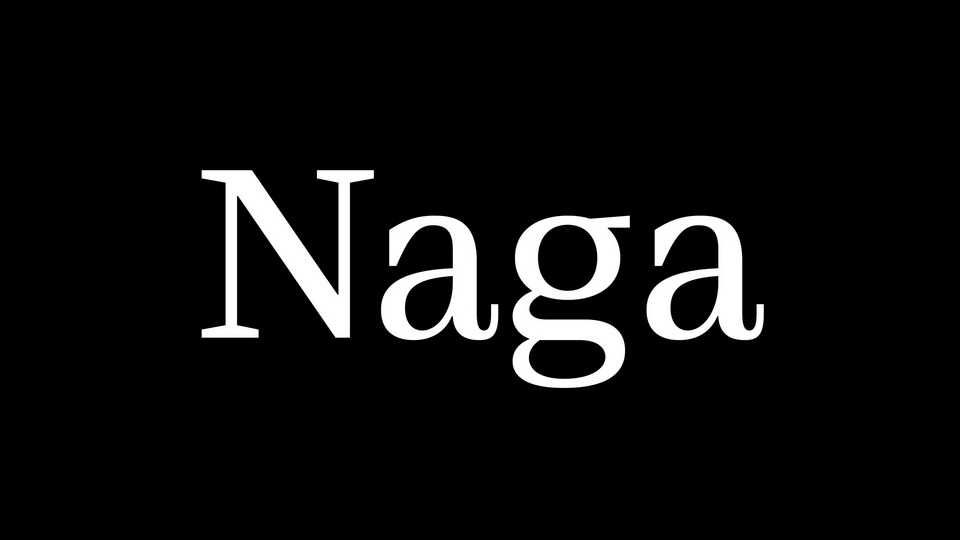
Download Naga font, a slender serif typeface with expressive serifs and long tails. Naga font is already capable of performing an extensive range of design tasks.
Designer: Igor Stepanchenko